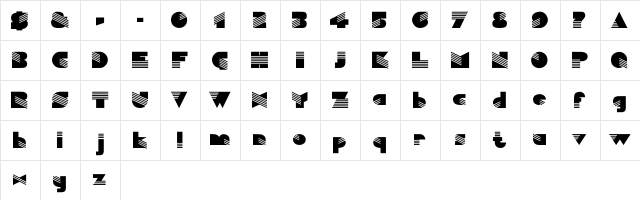
Sinaloa Regular Free Font
Sinaloa Regular
Sinaloa Family
Design Context for Sinaloa
Sinaloa is a composed and adaptable typeface that performs quietly and consistently across a wide range of design contexts.